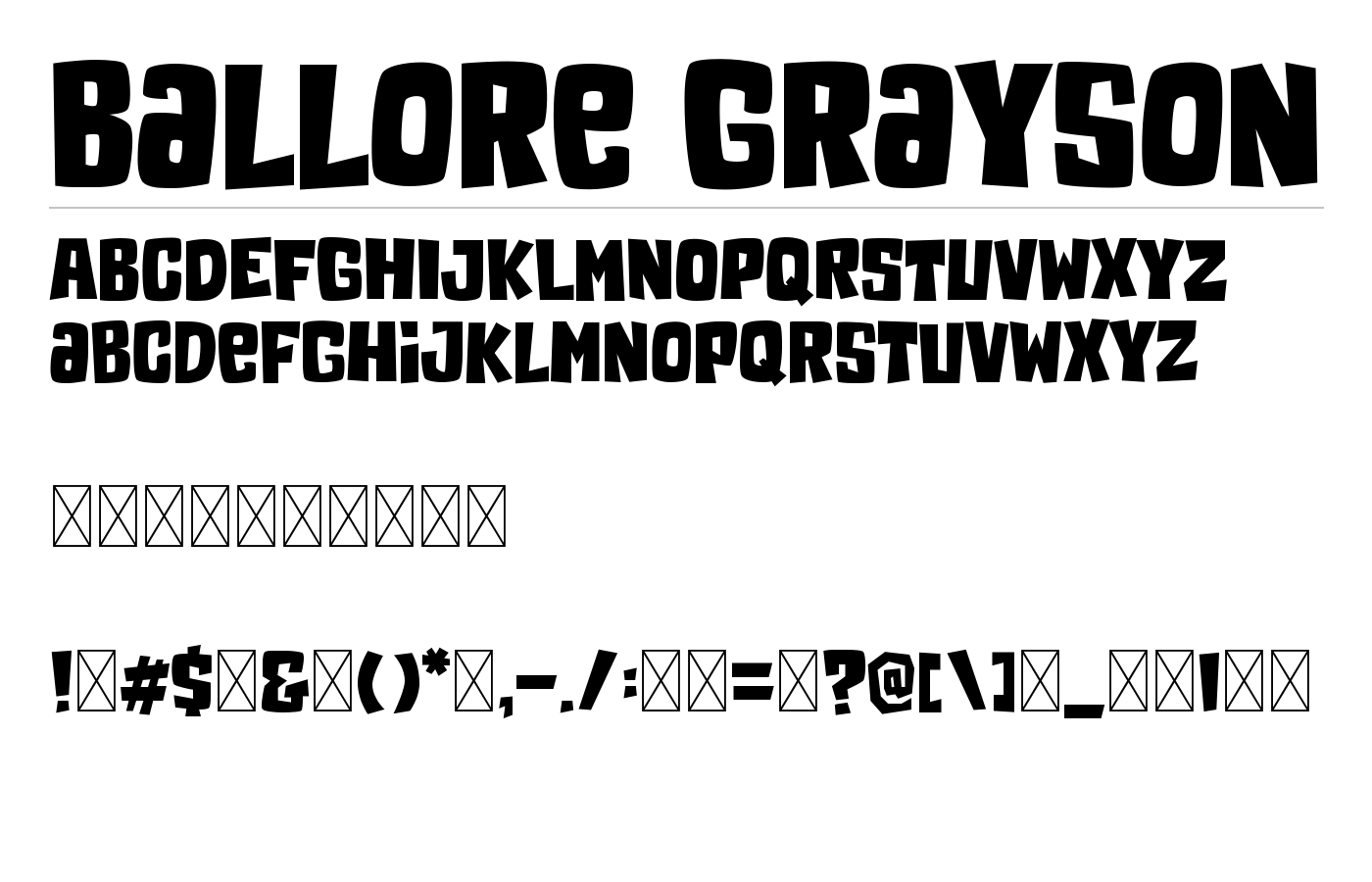
Ballore Grayson is a bold, playful sans serif font with a quirky, slightly condensed style and uneven letterforms that give it a lively, hand-crafted feel. Its strong weight, distinctive shapes, and tight spacing make it ideal for eye-catching headlines, logos, and creative branding that wants to convey fun and uniqueness. This font works great for projects seeking a modern yet friendly personality that stands out with character.
Ballore Grayson Font
About Ballore Grayson Font
| Font family | Ballore Grayson Font |
| Designer | M Arif Dwi Prasetyo & Eko Nurcahyo |